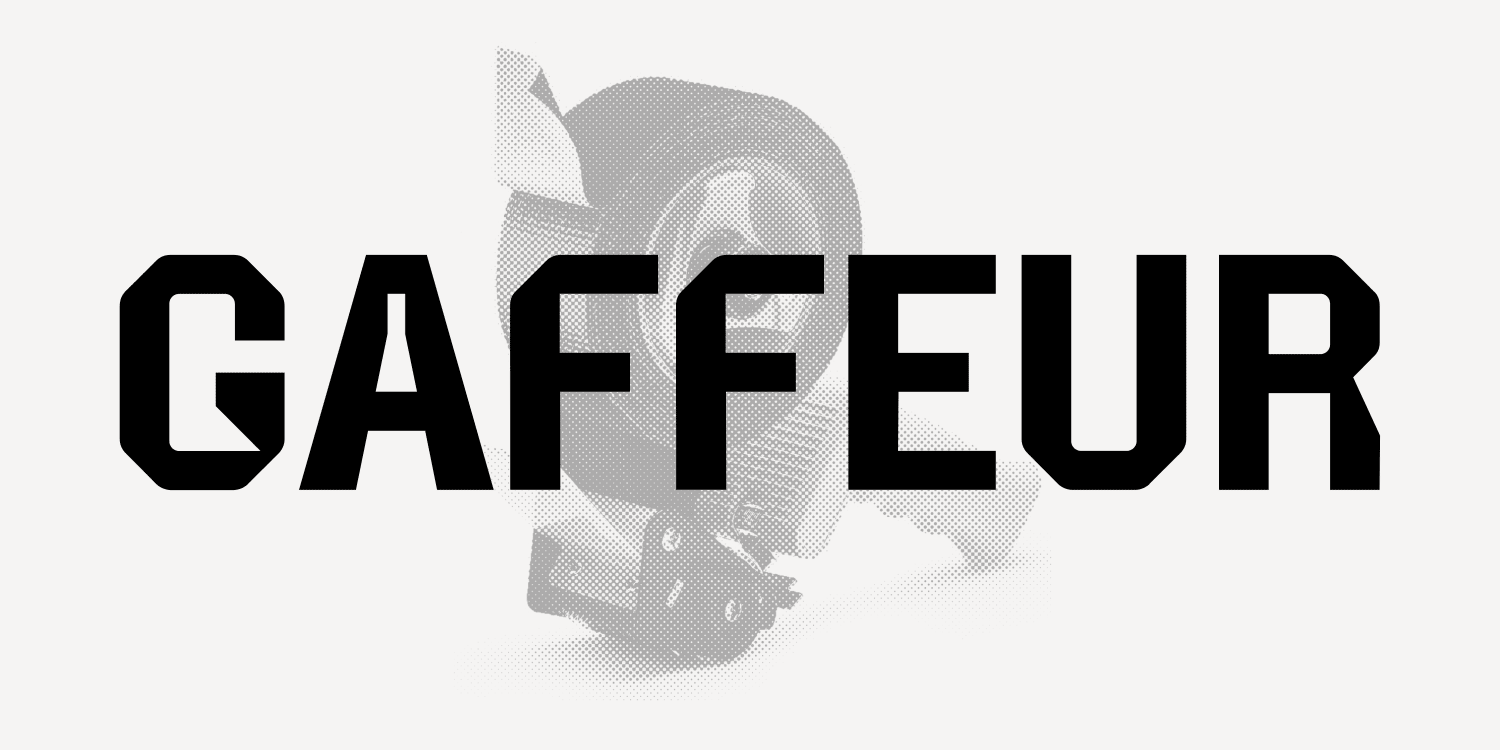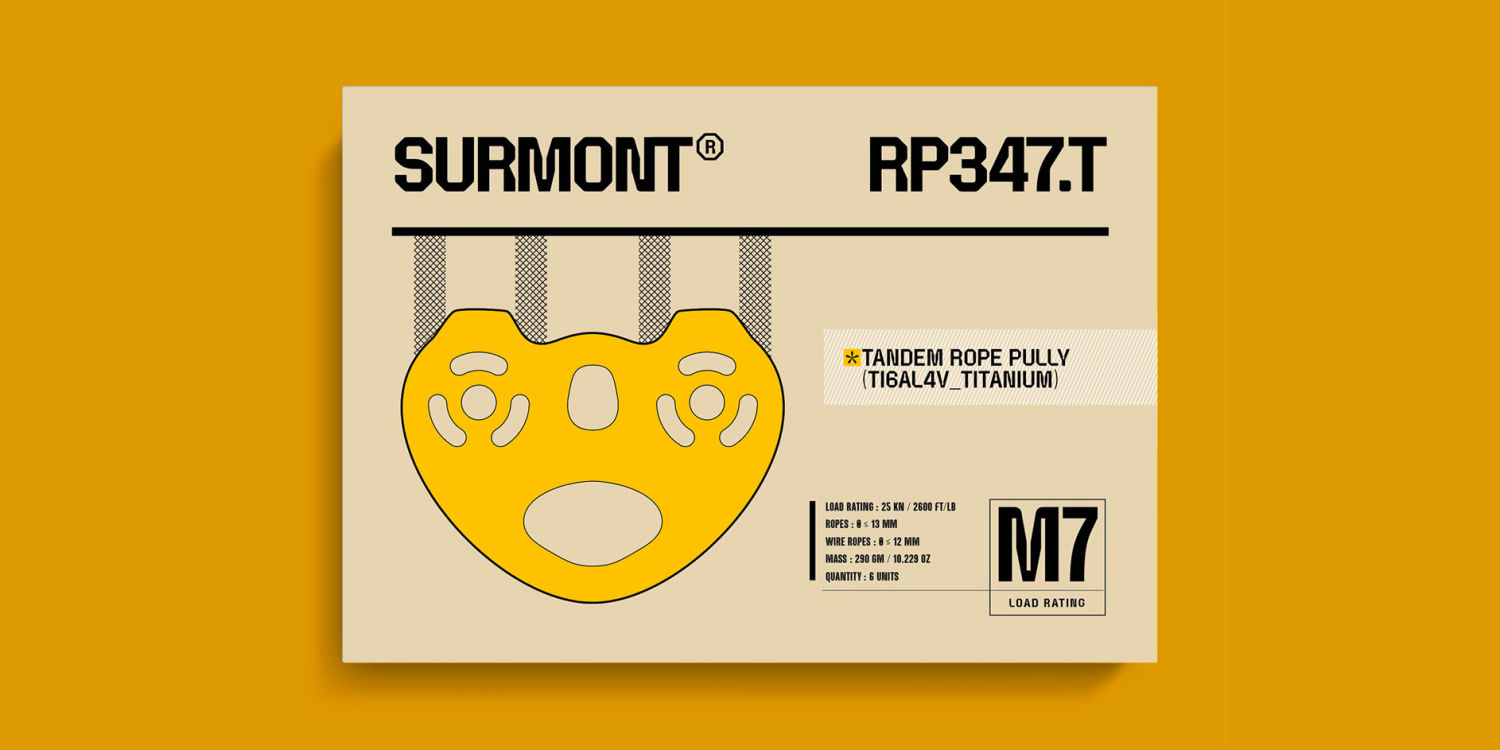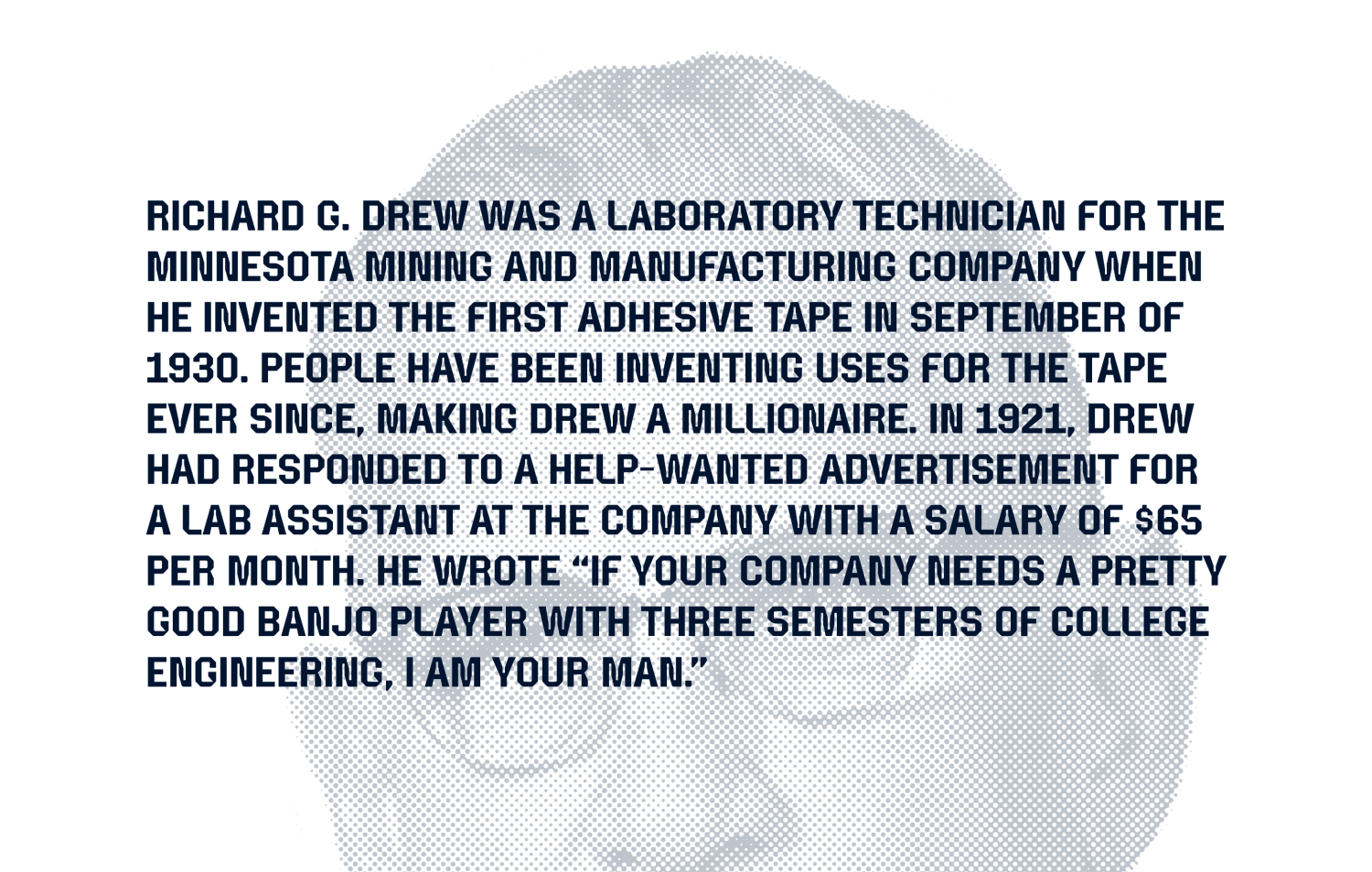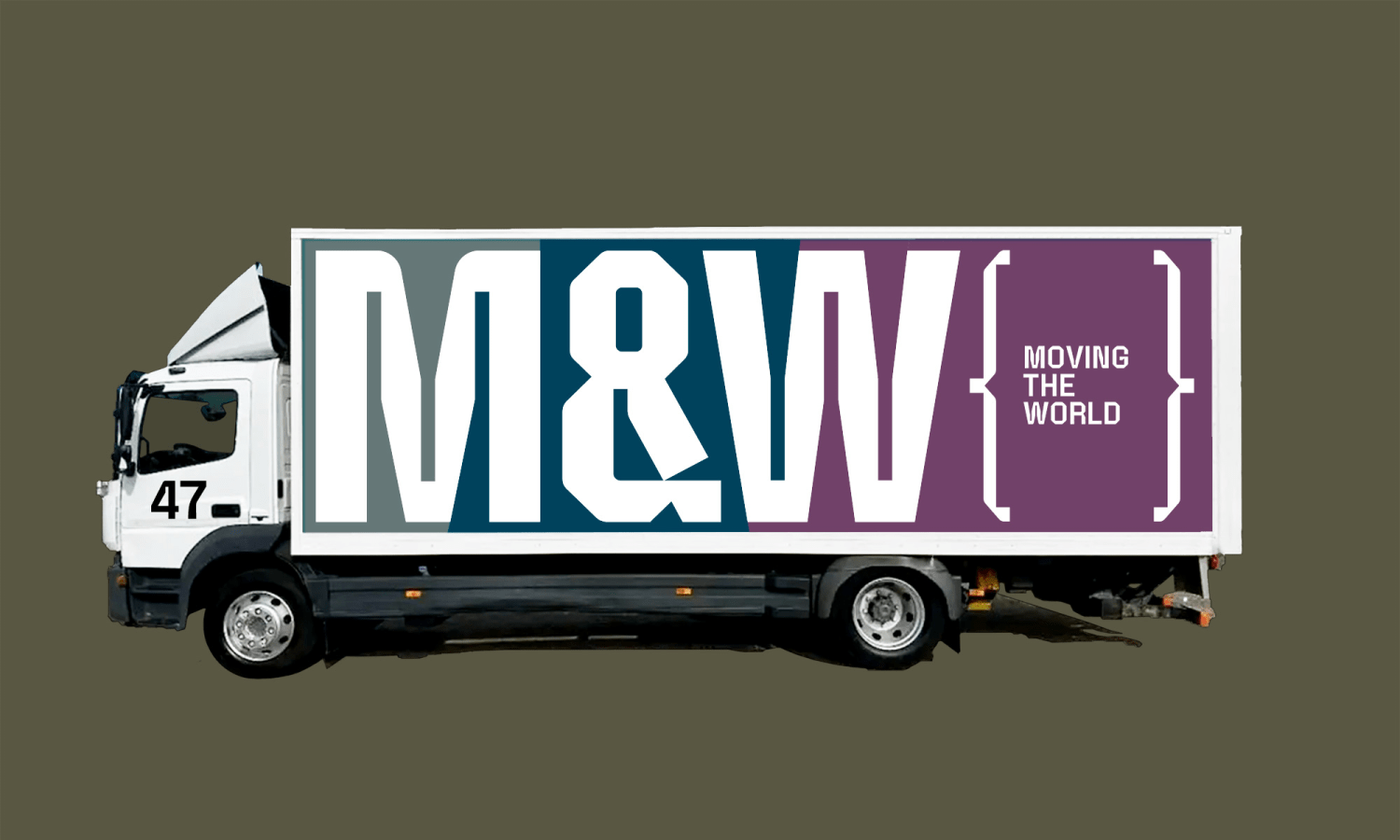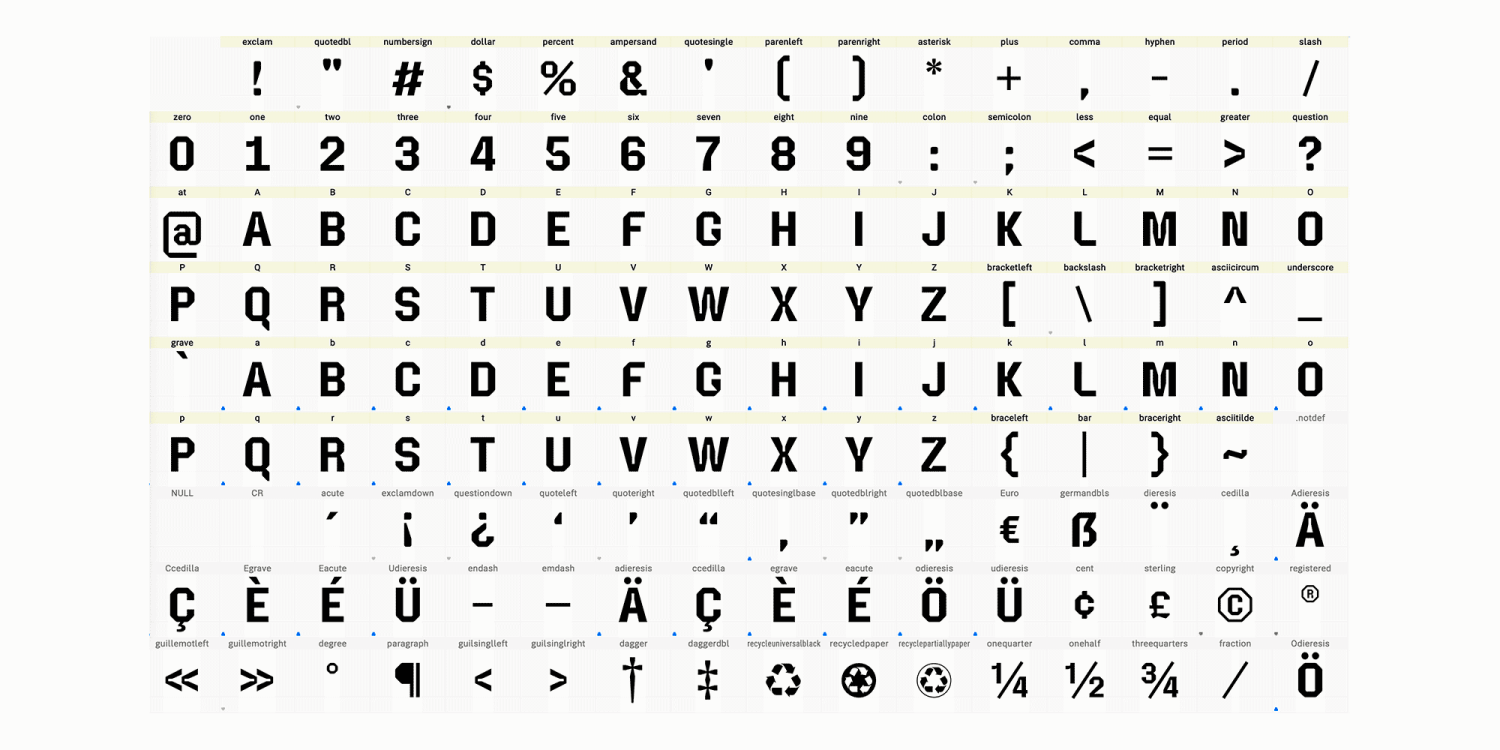
Gaffeur Basic Bold
Font Style by Typonym
Gaffeur Basic is the basic Latin version of Gaffeur, a modern and refined take on a traditional typographic genre, one common to improvised signs, liveries and sports jerseys. Curves are traded for angles, glyph widths are standardized--particularly in the numerals--and constructed around the idea of folding tape into letterforms. But the concept is transfigured here, merging with the nuances of elegant and inventive typography to create something unexpectedly novel. The same care has been taken in setting metrics and kerning that would be expected from any professional typeface. The result is a recognizably distinctive, surprisingly versatile post-modern display typeface situated between Swiss minimalism and avant garde hijinks.